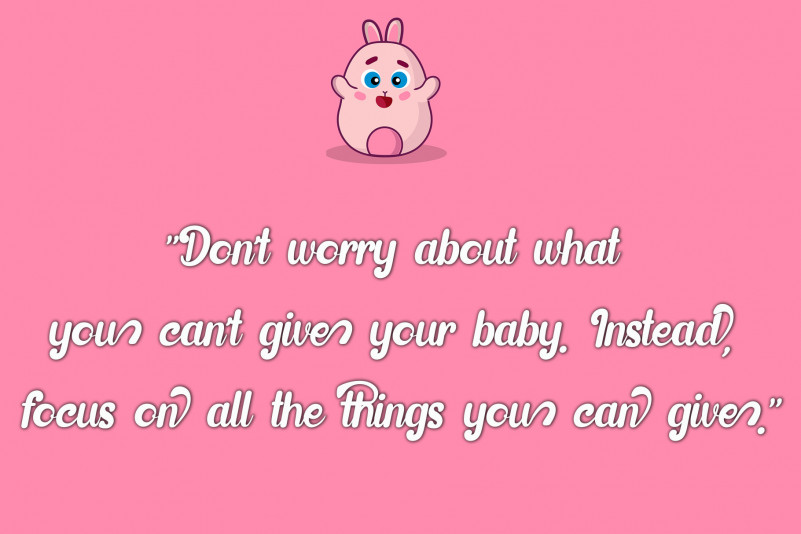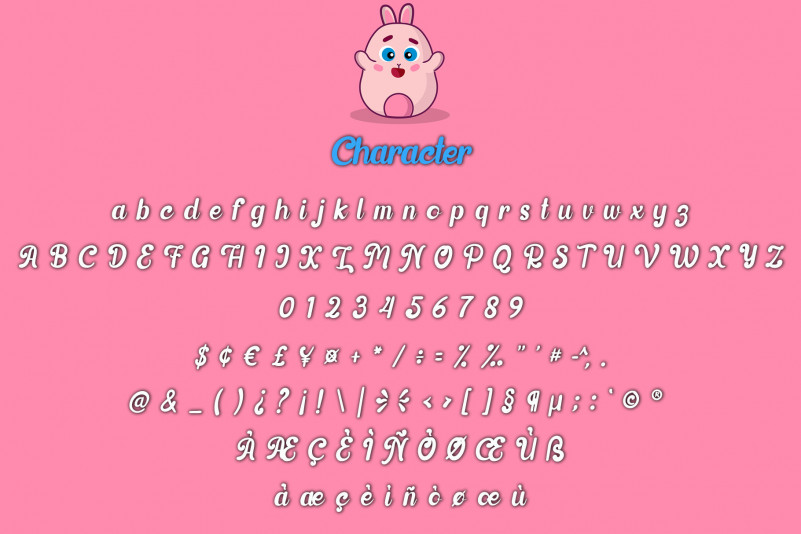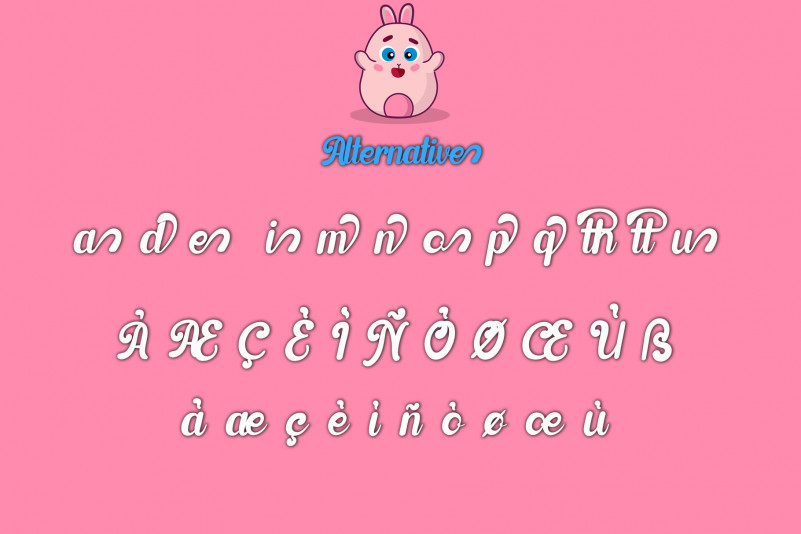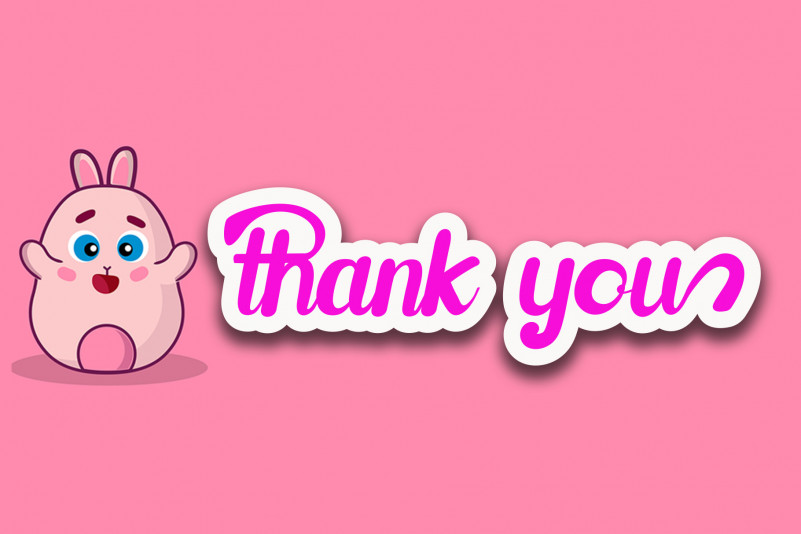
Fantasy The Miniatur Font
Fantasy The Miniatur Script Font
This is a whimsical script font with a relaxed theme, featuring a lovely style. No matter the topic, this font will be an incredible asset to your fonts’ library, as it has the potential to elevate any creation.